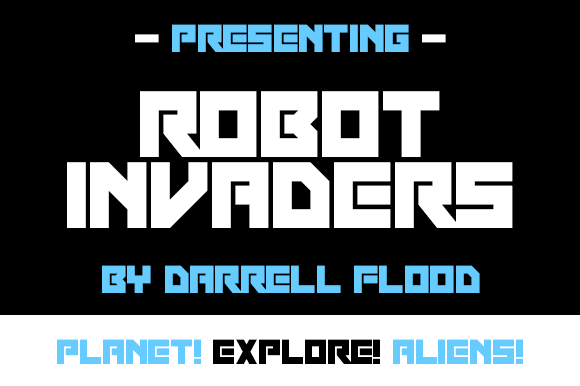
Introduction to Robot Invaders Font
You’ve finally landed that big creative project, and it’s time to make a statement. As you browse through your design resources, your eyes land on the perfect font – bold, futuristic, and edgy. That’s exactly what the Robot Invaders Font offers, and it’s about to take your designs to the next level. This high-quality font is not just a pretty face; it’s a powerful tool that can elevate your web designs, business cards, and any other project that requires a cool touch.
Whether you’re working on a personal project or a client’s brief, having access to a reliable design resource like the Robot Invaders Font can be a game-changer. Imagine being able to download it for free and use it to create stunning visuals that stand out from the crowd. With its transparent background and sleek design, this font is perfect for designers who want to add a futuristic twist to their work.
So, what are you waiting for? Dive into the world of Robot Invaders Font and discover a new way to express your creativity. From logos to infographics, this font is sure to make your designs shine.
Key Features of Robot Invaders Font
- High-quality, bold font perfect for creative projects, such as video games, animations, and futuristic designs.
- Features a futuristic and robotic aesthetic, ideal for sci-fi and tech-related themes.
- Includes multiple styles and weights, providing versatility for designers to experiment with different font combinations.
Honest Review: Robot Invaders Font
As a designer, I’m always on the lookout for high-quality design resources to elevate my creative projects. The Robot Invaders Font caught my attention with its unique blend of futuristic and retro elements. I decided to give it a try and share my honest review.
- Unique and bold character set that’s perfect for sci-fi and futuristic themes.
- High quality and crisp, with clear lines and details.
- Some characters may not be suitable for all types of projects, especially those requiring subtlety.
- Limited language support, which may be a concern for designers working on international projects.
Overall, the Robot Invaders Font is a great addition to any designer’s toolkit. Its unique style and high quality make it perfect for creative projects that require a bold, futuristic look. While it may have some limitations, it’s still a valuable design resource that’s definitely worth exploring.
Designing with a Transparent Background
One of the unique features of the Robot Invaders Font is its transparent background, which makes it perfect for use in creative projects that require a high level of customization. To use the font with a transparent background, simply copy and paste the font into your design software and adjust the background as needed.
The Robot Invaders Font is perfect for use in a variety of creative projects, including posters, flyers, business cards, and social media graphics. It’s also a great choice for use in video game design, animation, and other digital media projects.
Yes, the Robot Invaders Font has a transparent background, making it ideal for use on images or videos with complex backgrounds. This feature allows the font to blend seamlessly with your design, creating a cohesive and professional look.